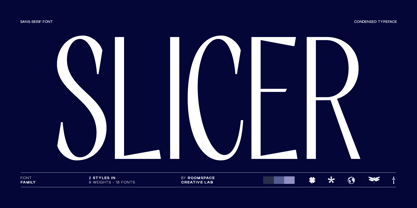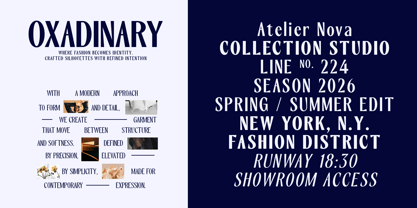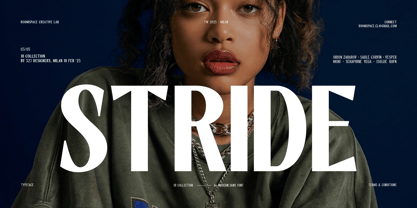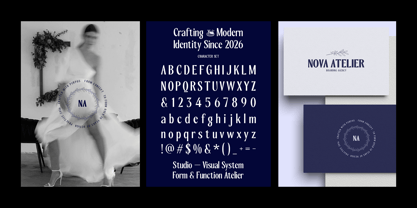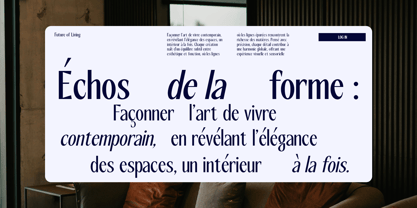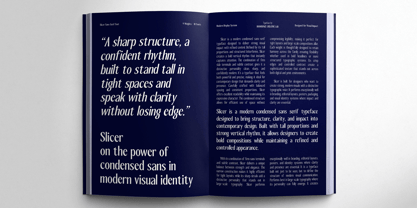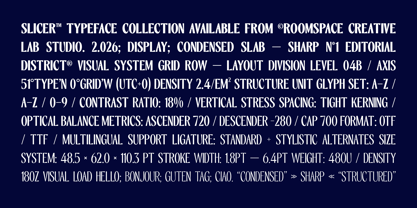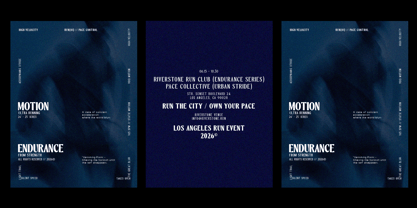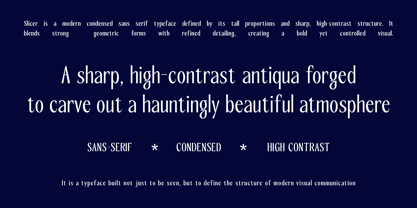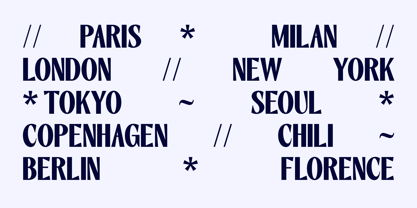
RCL Slicer
by Jafar07
The RCL Slicer Font Family was designed by Bakhrudin Ja'far and published by Jafar07. RCL Slicer contains 18 styles and family package options. More about this family
Slicer is a condensed sans-serif font family designed for modern designers who need precision and presence. With its narrow proportions and sharp contrast, Slicer creates strong visual hierarchy while maintaining clean readability. From branding systems to editorial layouts, Slicer adapts effortlessly across contemporary design needs. It’s built to define your message not just display it. Sharp, confident, and structured a condensed sans-serif built for clarity and impact. Slicer emphasizes vertical rhythm, tight spacing, and high contrast, creating a bold and modern visual presence. Features: 18 fonts (9 weights × 2 styles) Condensed sans-serif structure High contrast strokes Uppercase & lowercase Multilingual support Professional kerning Perfect For: Branding, social media, web design, UI/UX, posters, editorial
Designers: Bakhrudin Ja'far
Foundry: Jafar07
RCL Slicer